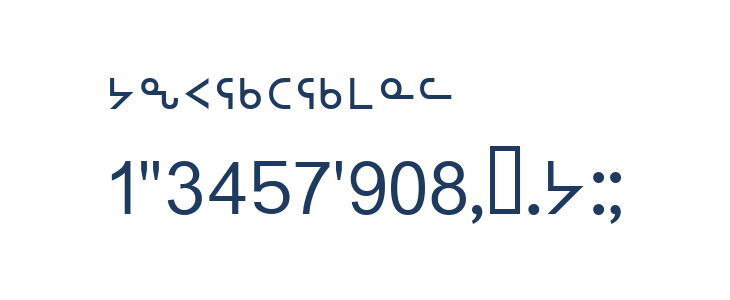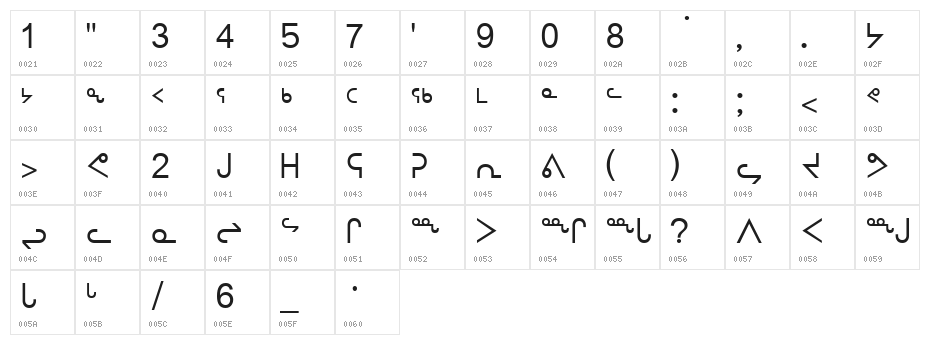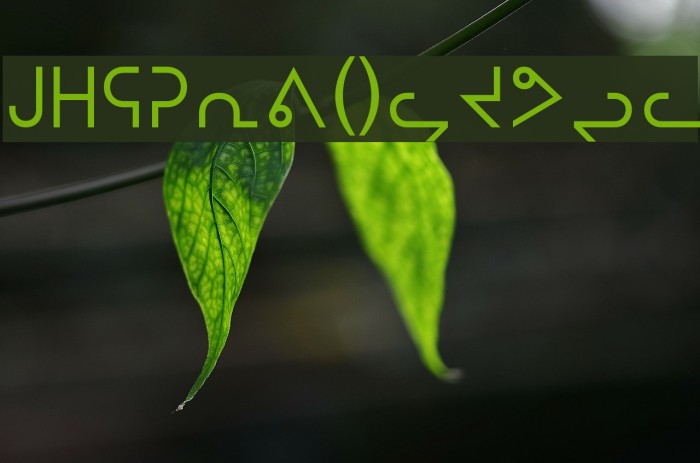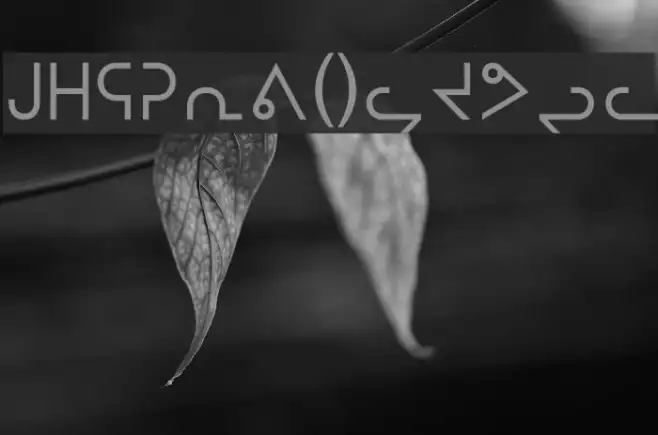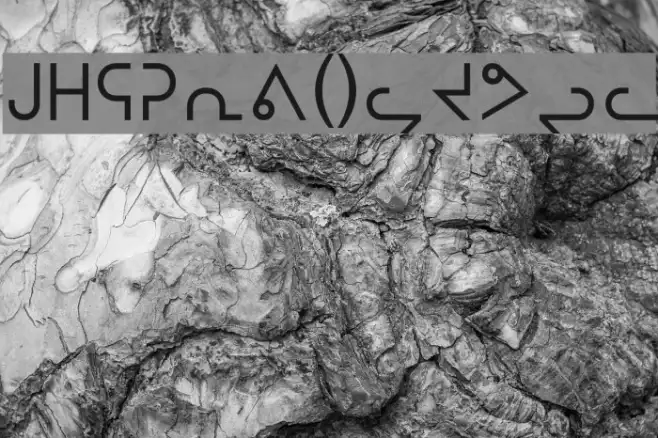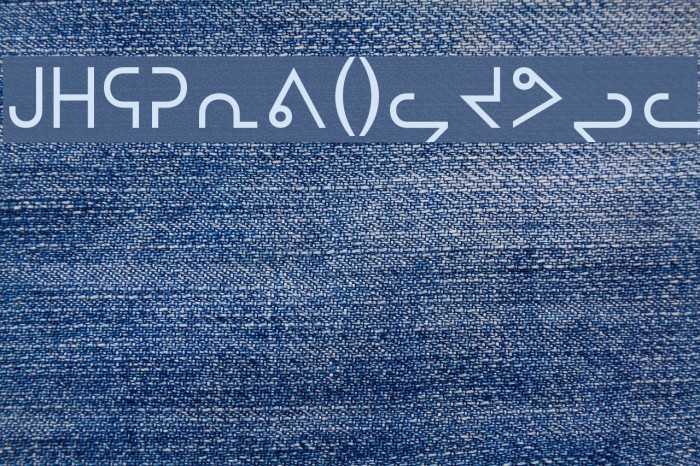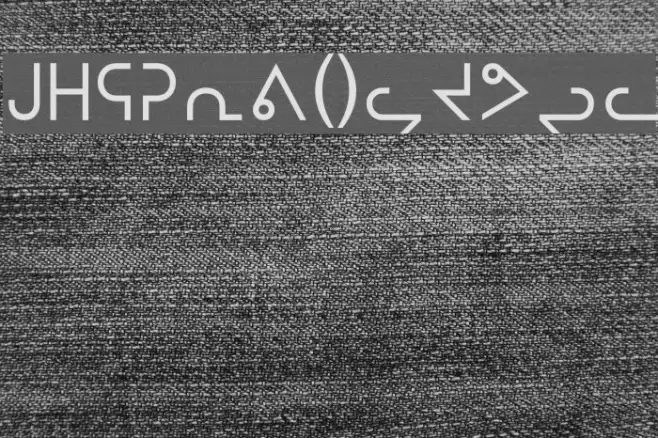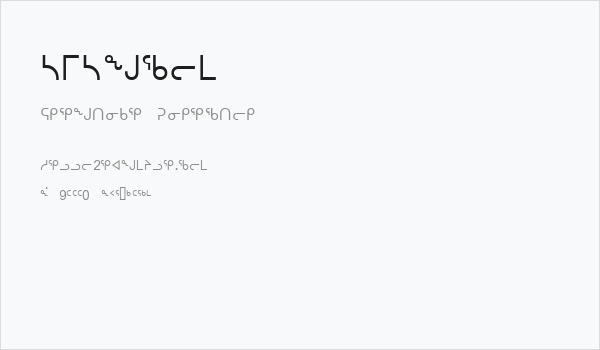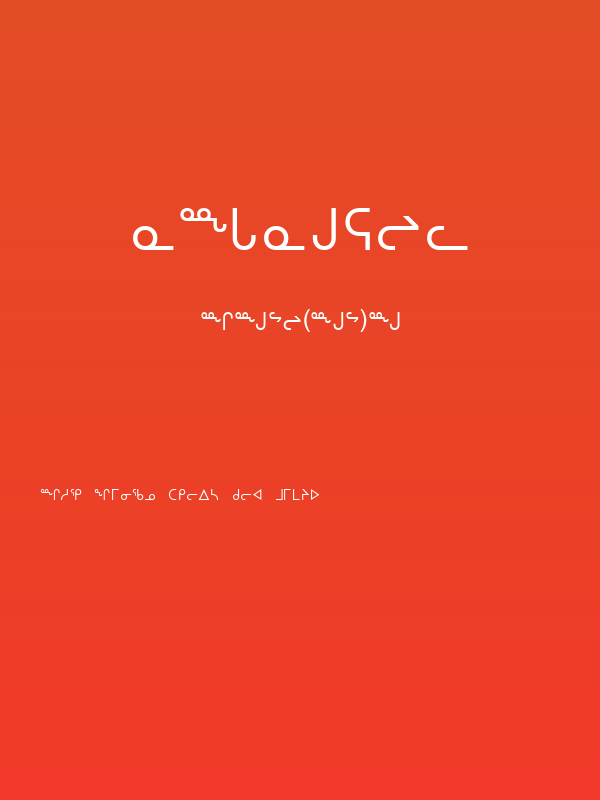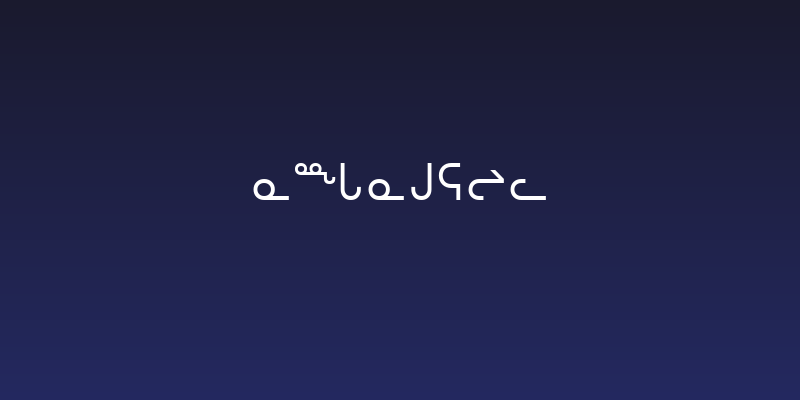
nunacom Font
nunacom Description
This font features a unique and modern design with a geometric and abstract style. The characters are composed of clean lines and sharp angles, giving it a futuristic and innovative appearance. The font maintains a consistent stroke width throughout, contributing to its sleek and minimalistic look. The characters are well-spaced, ensuring readability while maintaining its distinctive aesthetic. This font is ideal for projects that require a contemporary and cutting-edge feel, making it suitable for technology-related designs or creative branding.
| Use Case | Logos, Headlines, Digital media |
| Proposed Projects | Ideal for technology branding, modern art projects, innovative product packaging, and digital media design. |